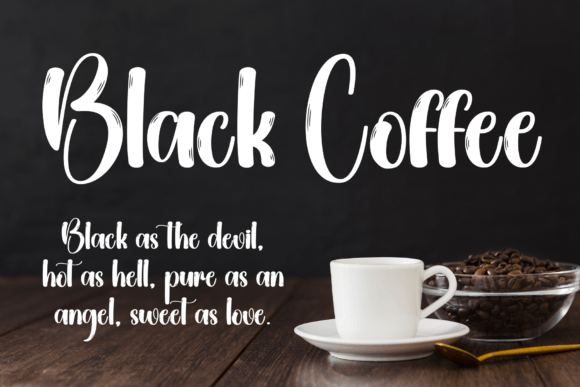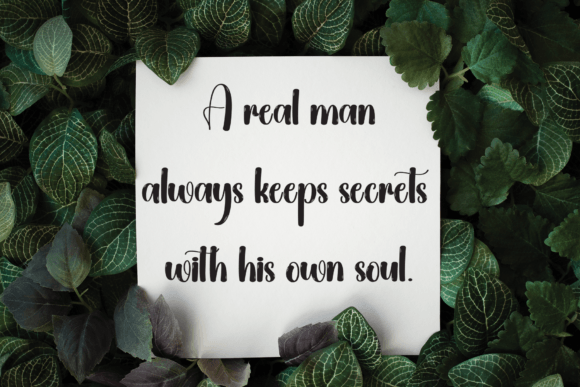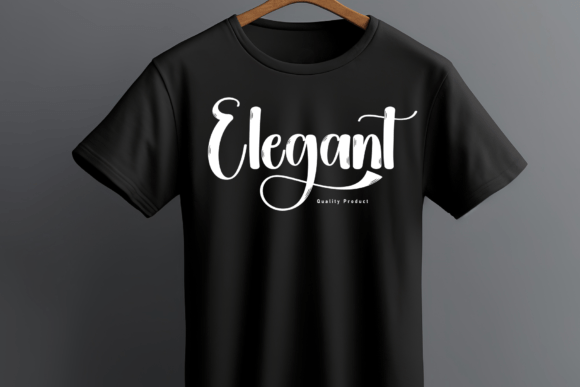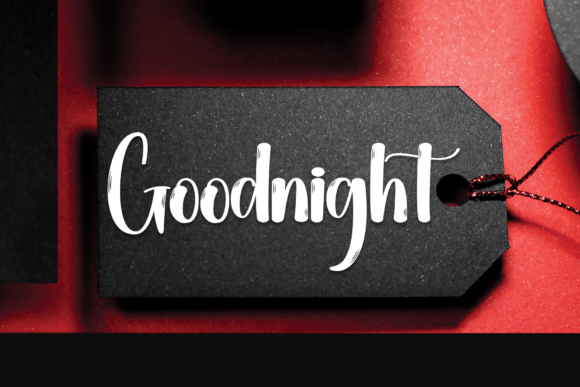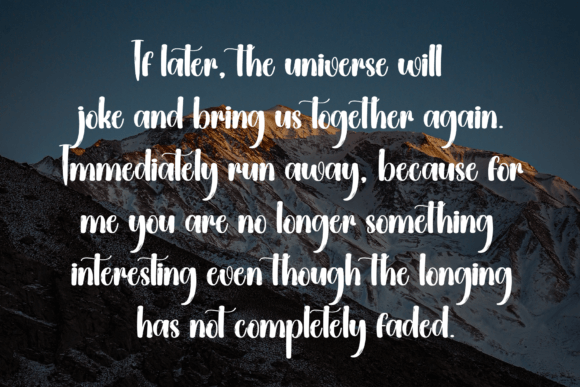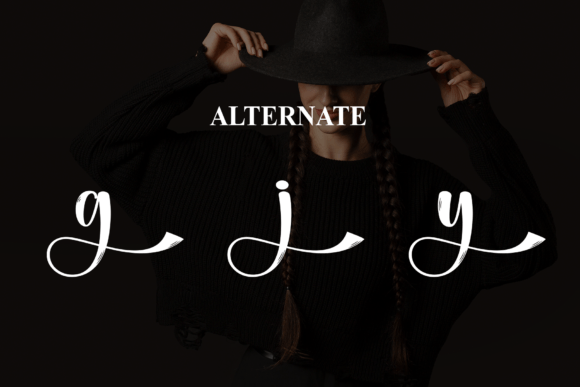
The Elegance of Angela Font: A Designer’s New Best Friend
I still remember the project that led me to discover Angela Font. I was working on a wedding invitation design for a client who wanted something elegant and sophisticated. As I scrolled through my font library, I stumbled upon Angela, and it was love at first sight! 💕 The fluid strokes, the elegant connections, and the overall refined aesthetic won me over. In this article, I’ll share my experience with Angela Font, its features, and how to make the most of it in your designs.
An Honest Review of Angela Font
• ✨ Elegant and refined script style, perfect for wedding invitations, quotes, and greeting cards
• 🖌️ Beautifully crafted with attention to detail, giving it a luxurious feel
While Angela Font is an excellent choice for many design projects, there are a few things to keep in mind:
• ⚠️ Limited availability of stylistic alternates, which might restrict design variations
• 🤔 May not be the best fit for very informal or playful designs, as it leans towards elegance and sophistication
The Backstory of Angela Font
Angela Font was designed with the intention of creating a beautiful, elegant script font that captures the essence of handwritten calligraphy. The designer aimed to create a font that would be perfect for wedding invitations, greeting cards, and other designs that require a touch of sophistication. With its fluid strokes and refined aesthetic, Angela Font has become a popular choice among designers and crafters.
Q: What type of designs is Angela Font best suited for?
A: Angela Font is ideal for designs that require an elegant and sophisticated touch, such as wedding invitations, thank you cards, quotes, greeting cards, logos, and business cards.
Q: Is Angela Font available in different weights or styles?
A: Currently, Angela Font is available in a single weight. However, the font does offer some stylistic alternates and OpenType features that can add variation to your designs.